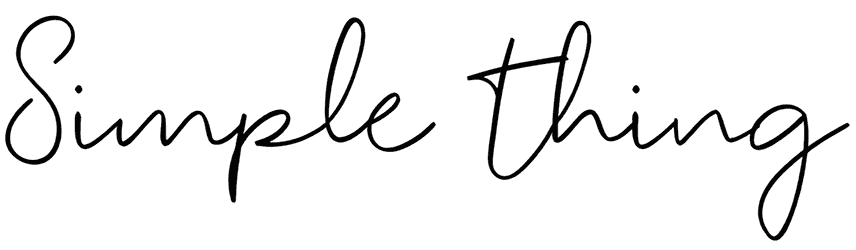
Simple Thing Font
For bringing a little delicacy to your typography, a freebie asset from RB as the handwritten font is unboxing to offer romantic and lovely artwork. Simple Thing, as its name depicts, with simple yet impressive dance, comes across to highlight many projects, including posters, quotes, packaging, business cards, and more.
Simple Thing is a well balanced and thin handwritten font. It is defined by beautiful curves and is perfect for fashion branding or editorial designs. Add it confidently to your projects, and you will love the results.